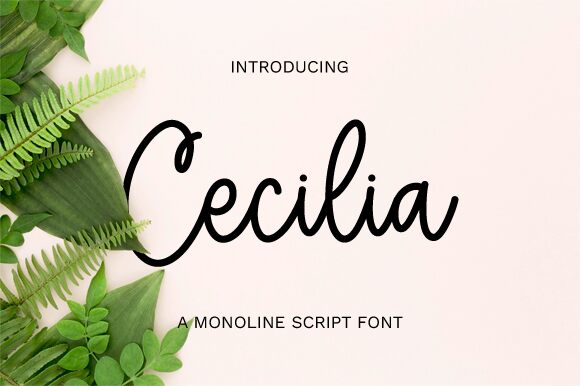
Cecilia
Cecilia, designed by Graphix Line Studio, embodies the charm of handwritten script with its fluid and expressive letterforms. This font captures the spontaneity of ink on paper, each stroke imbued with a personal touch that adds warmth and character to any project.
The elegant swoops and playful loops evoke a sense of whimsy, making Cecilia an excellent choice for invitations, branding, or any design that benefits from a handmade aesthetic.
With its distinct personality and casual elegance, this font invites viewers into a world where every word is a work of art.